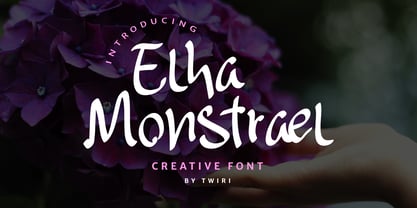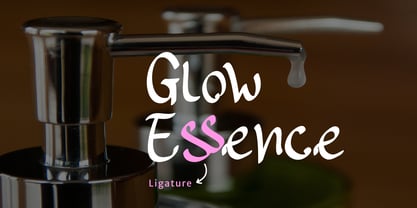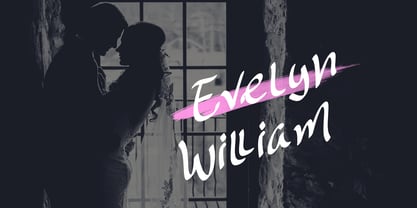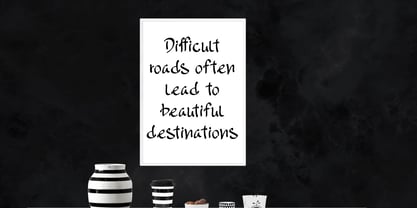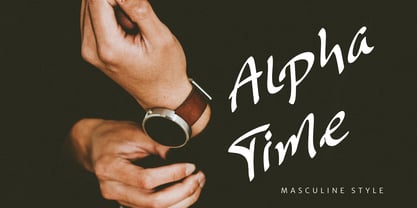
Elha Monstrael
by Twiri
The Elha Monstrael Font Family was designed by Twin Rizki and published by Twiri. Elha Monstrael contains 1 styles. More about this family
Elha Monstrael Font Handwritten is a versatile font designed for a variety of creative projects. Its elegant, handwritten style is perfect for labels, photography, watermarks, invitations, stationery, branding, logos, wedding designs, social media posts, advertisements, product packaging, product designs, and digital marketing.
Enjoy a complete set of uppercase and lowercase letters, multi-language support, numbers, punctuation, and ligatures.